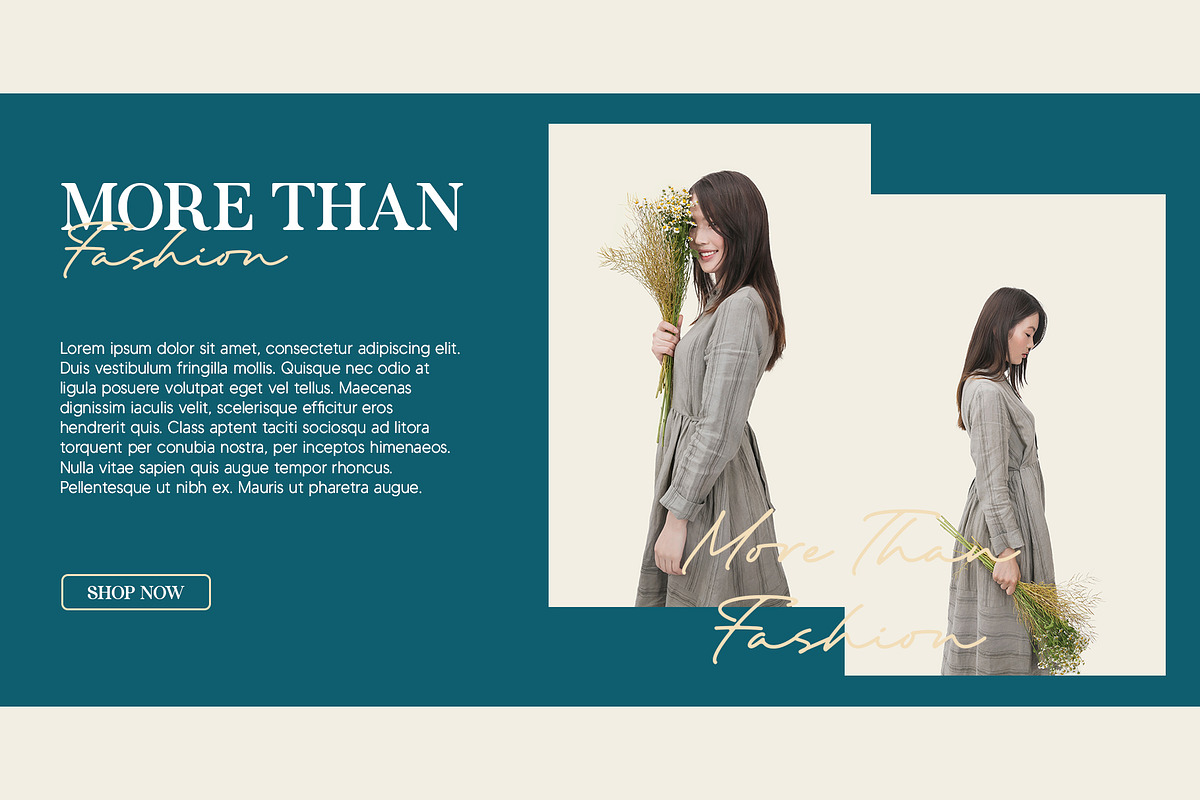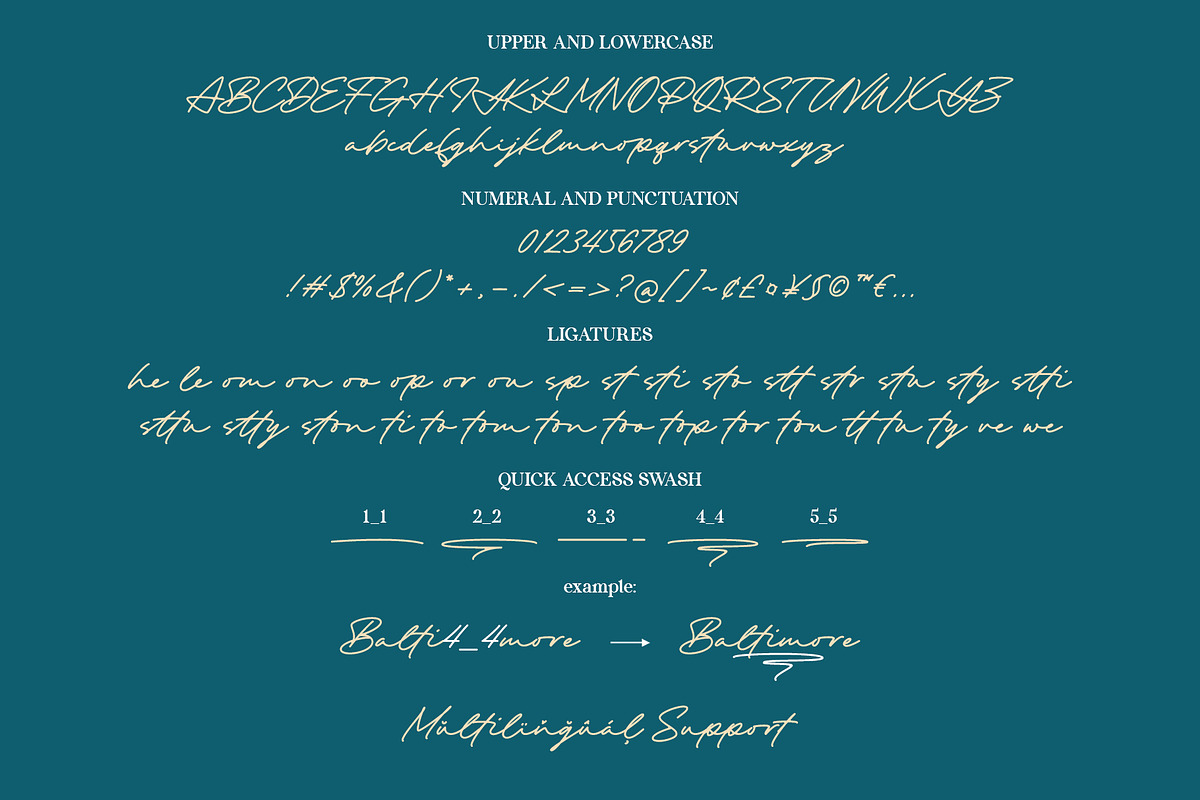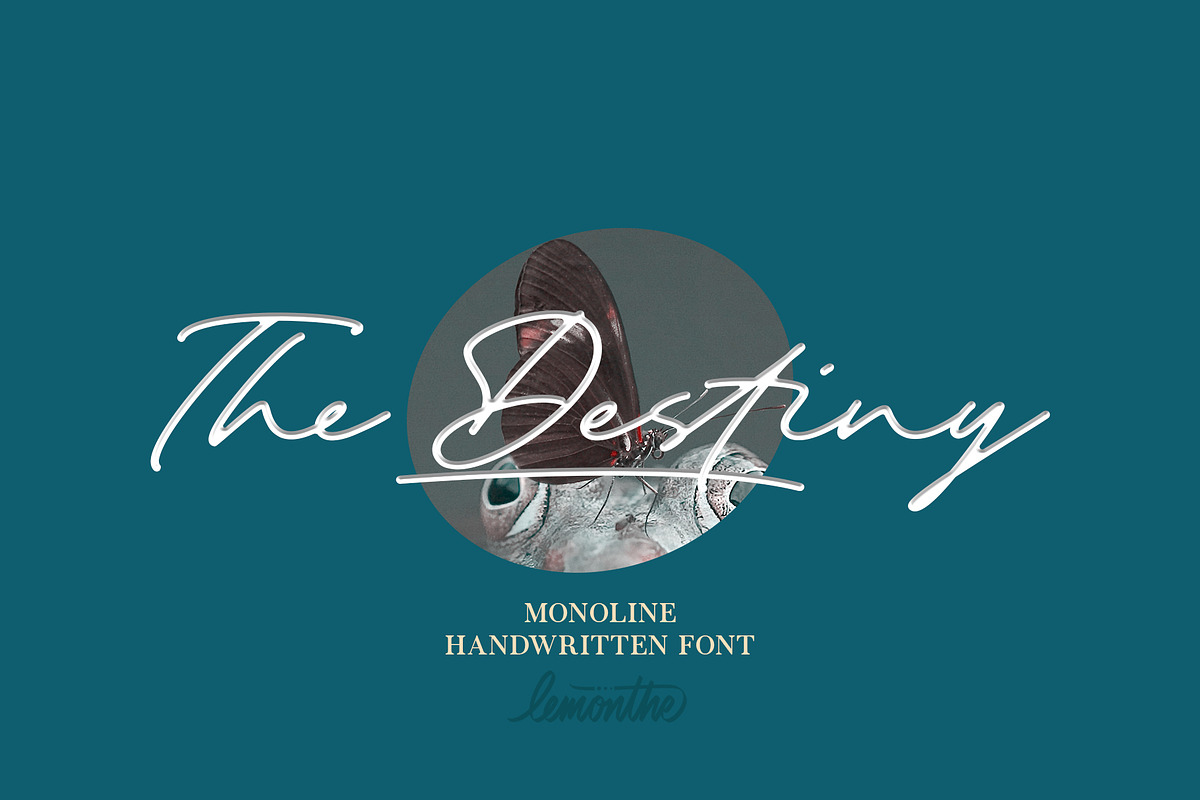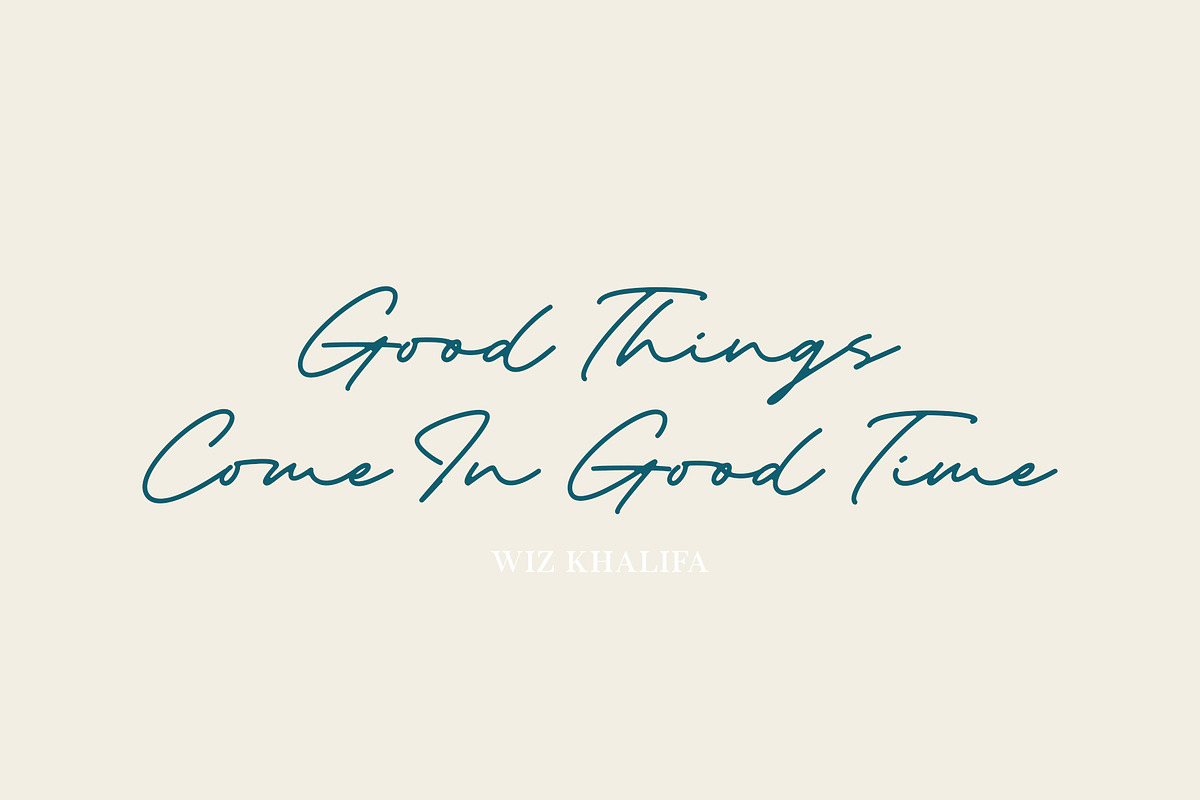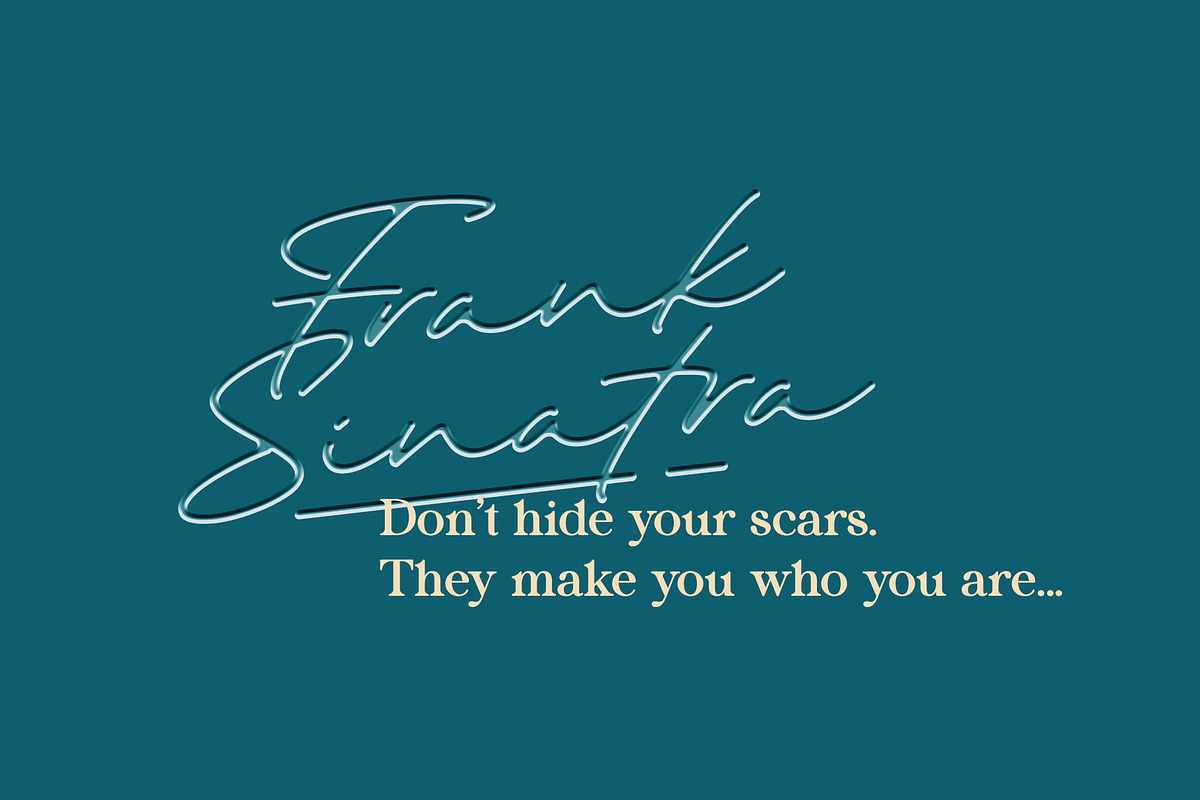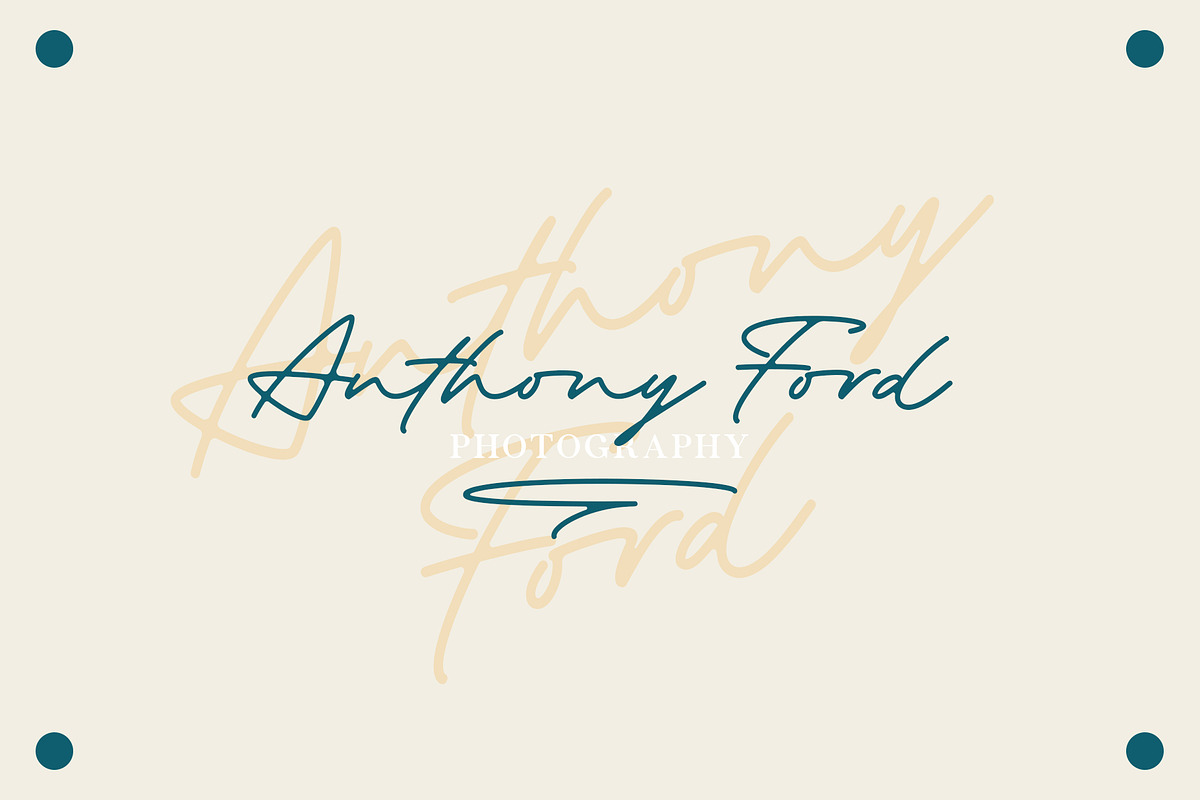
The Destiny | Monoline Script
The Destiny is a monoline handwritten font. It has a clean, thin and smooth vibe and it will be a hit for any design that you want to add it to. Suitable for any projects such as logos & branding, signature, invitation, stationery, wedding designs, social media posts, product designs, label, photography, and more!
Quick access swash
- Add number (1-5) + underscore + number (1-5). Ex: 1_1, 2_2, 3_3, 4_4, 5_5